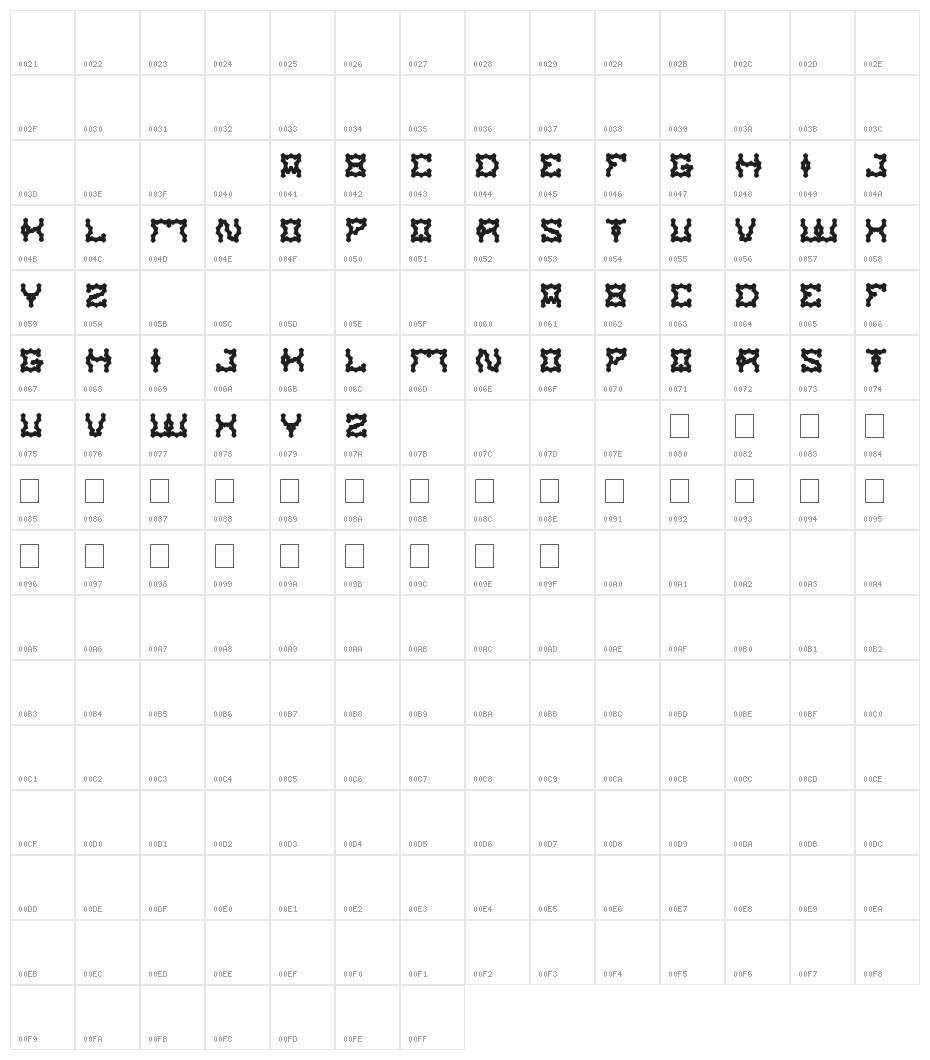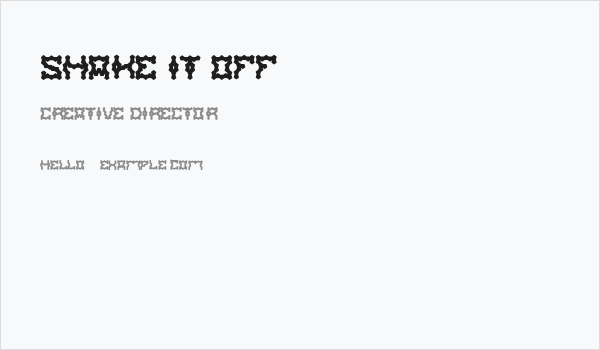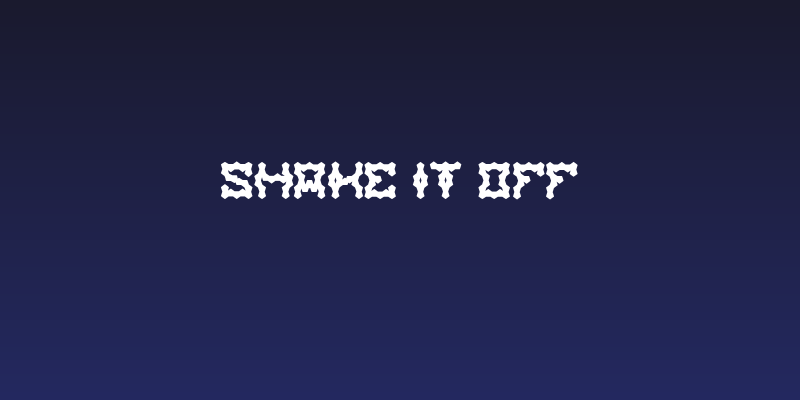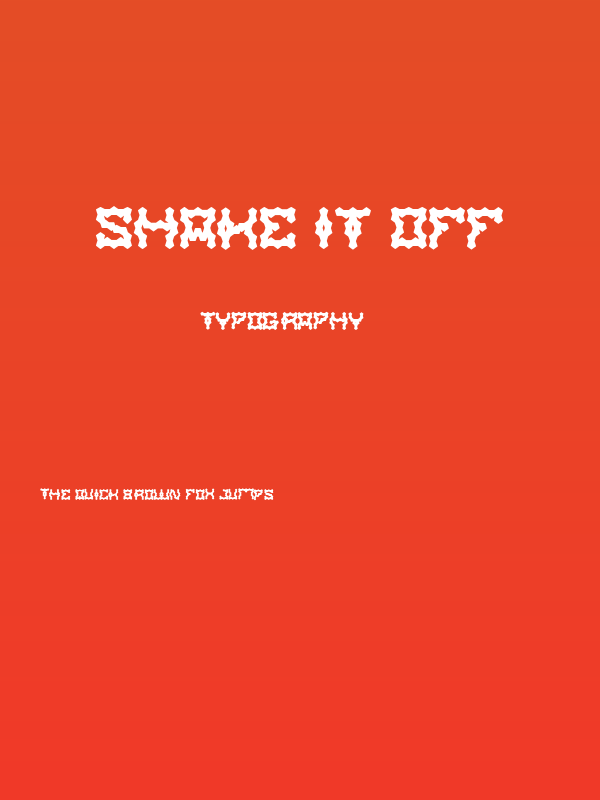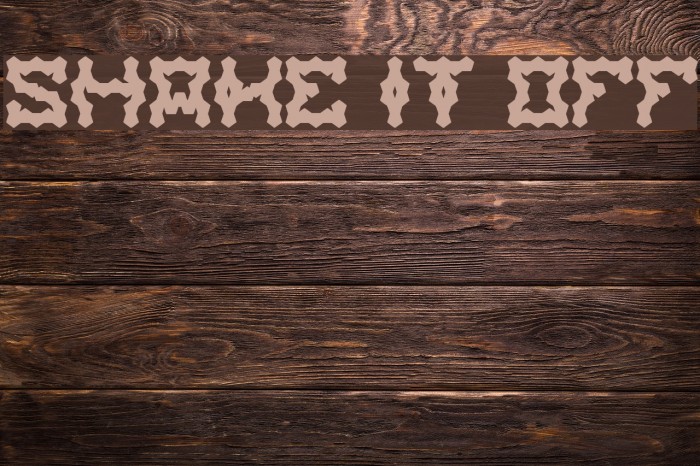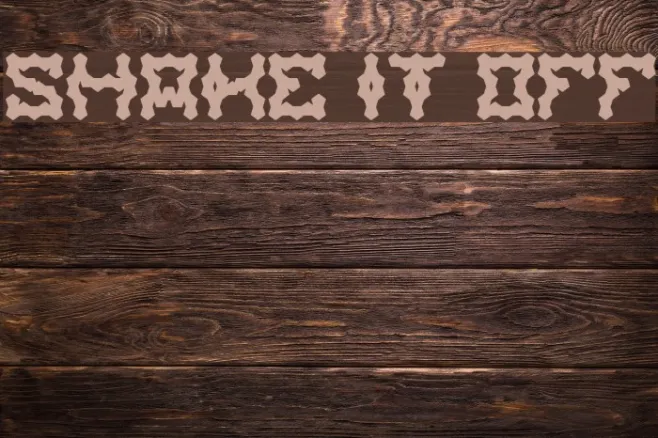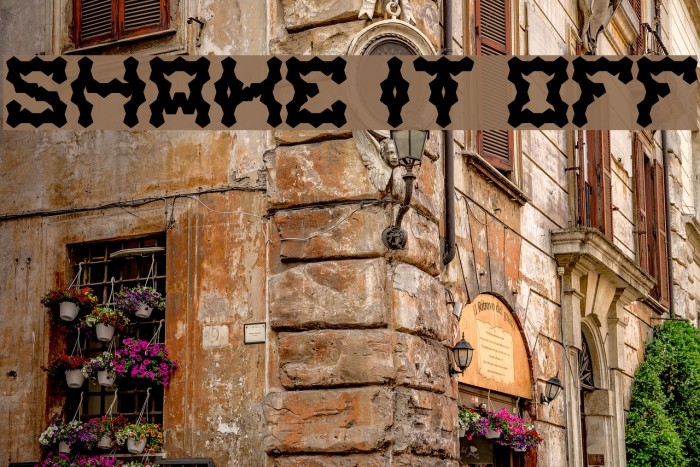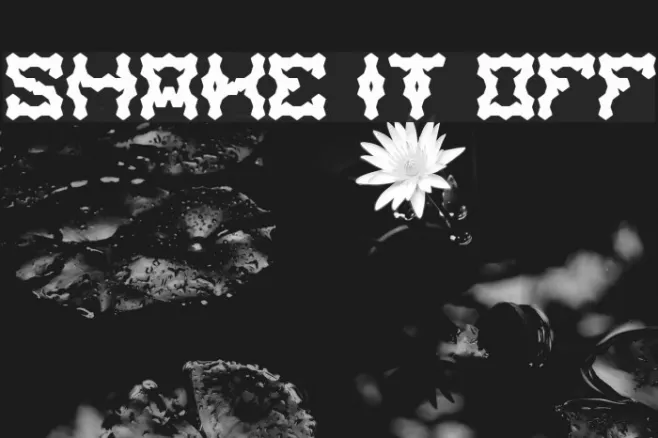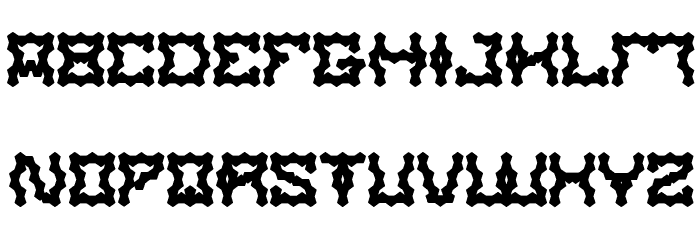
shake it off Font
shake it off Description
This font features a bold and dynamic design with a playful, irregular outline that resembles a series of interconnected shapes. Each character is crafted with a unique, jagged edge that gives it a lively and energetic appearance. The font maintains a consistent thickness throughout, creating a uniform look despite its unconventional style. Its distinct and eye-catching form makes it suitable for creative and artistic projects. The uppercase letters are particularly striking, with their bold presence and intricate details. This font is ideal for designs that aim to stand out and convey a sense of fun and movement.
| Proposed Projects | Ideal for posters, album covers, event flyers, and any project requiring a bold, artistic touch. |